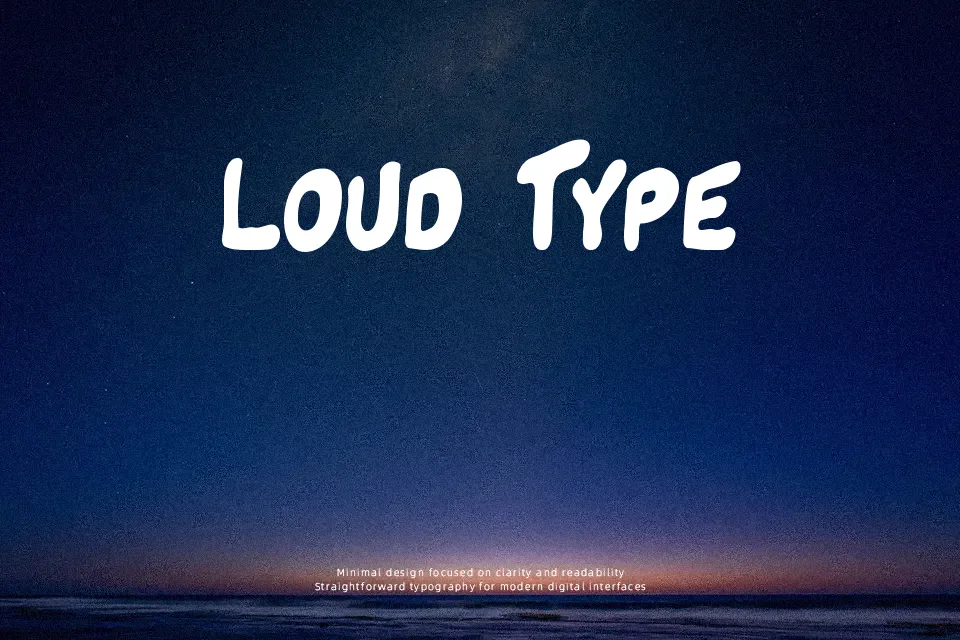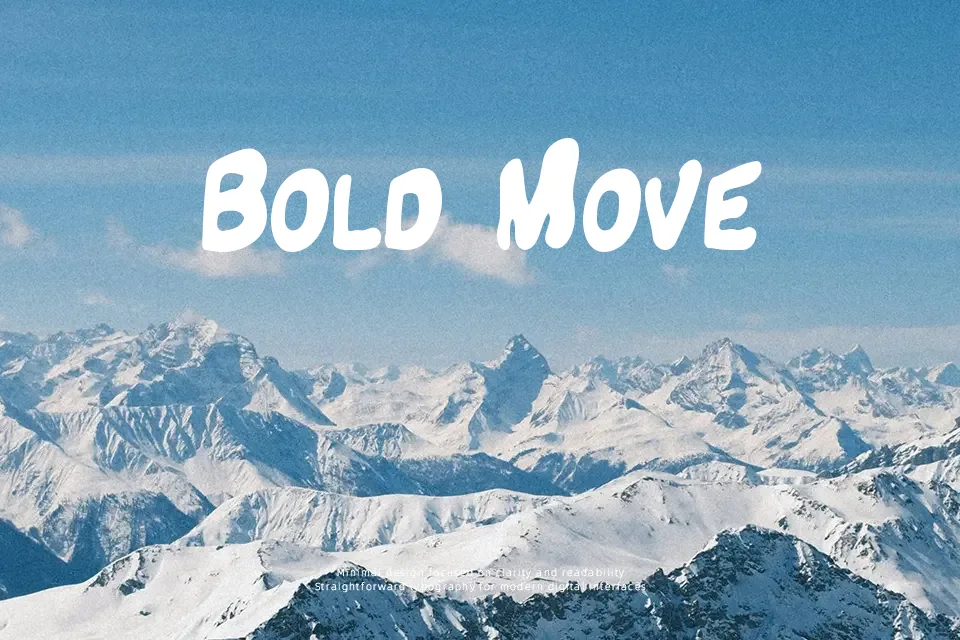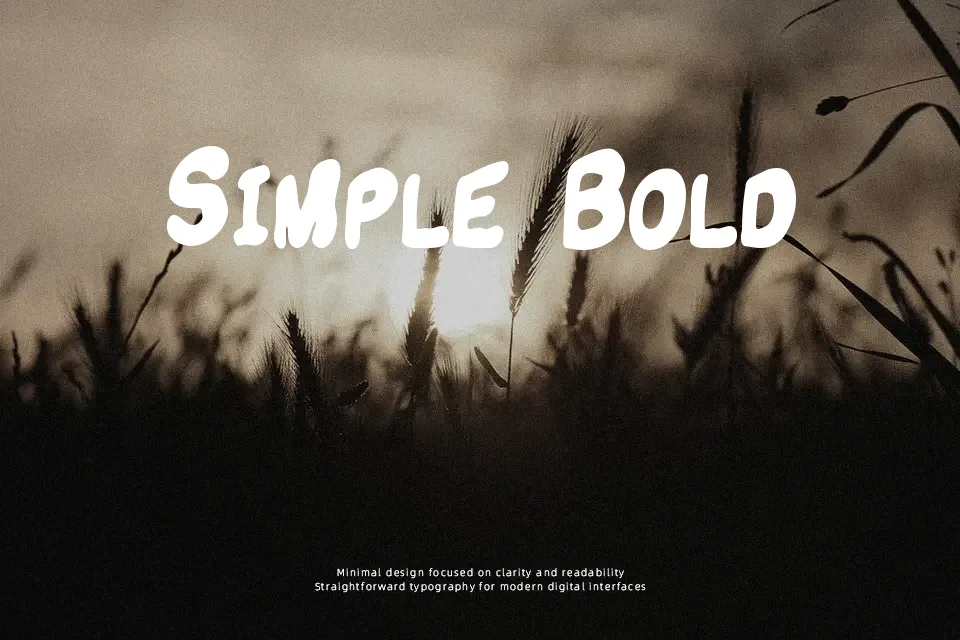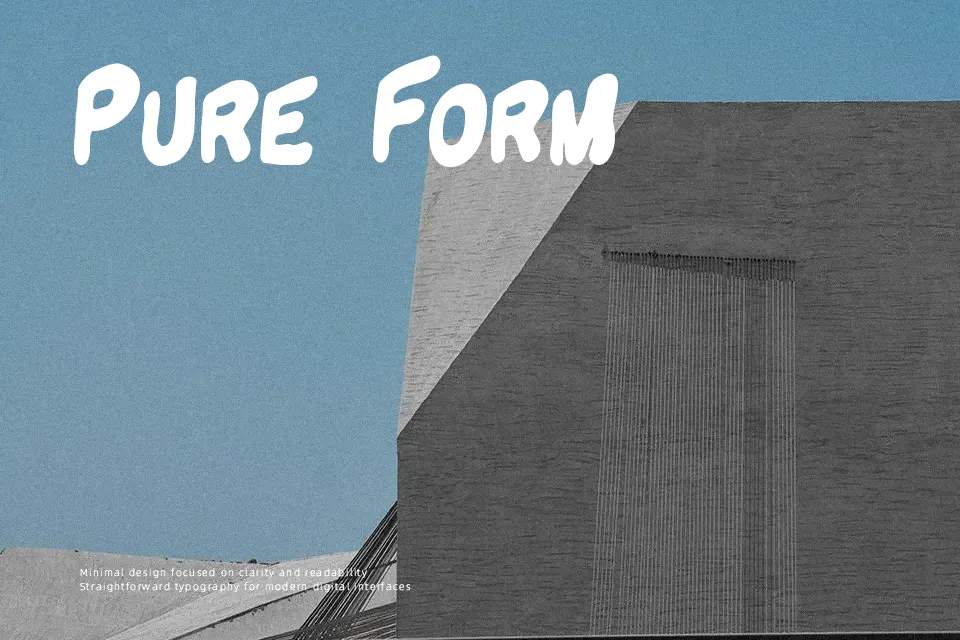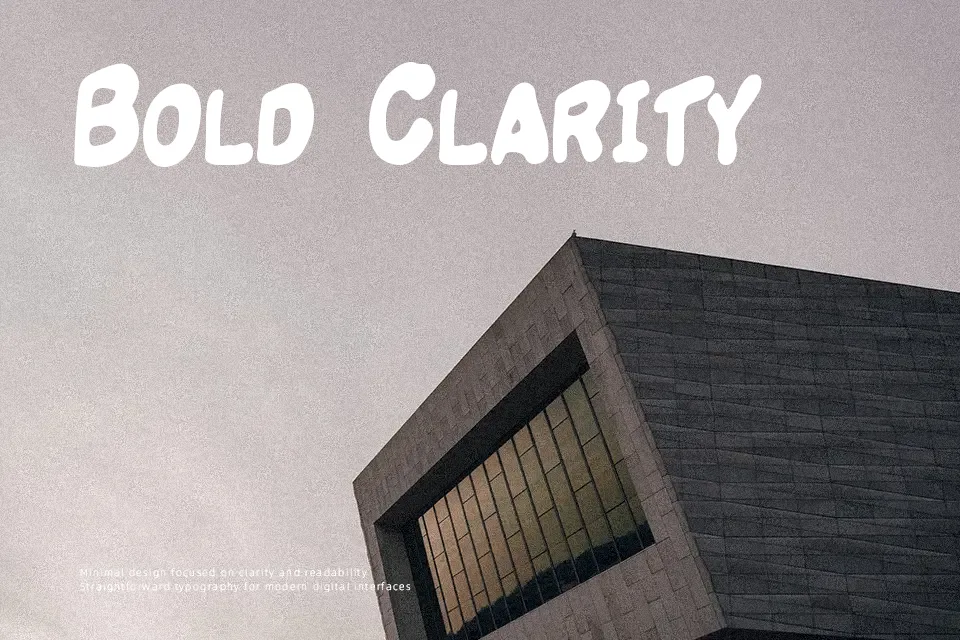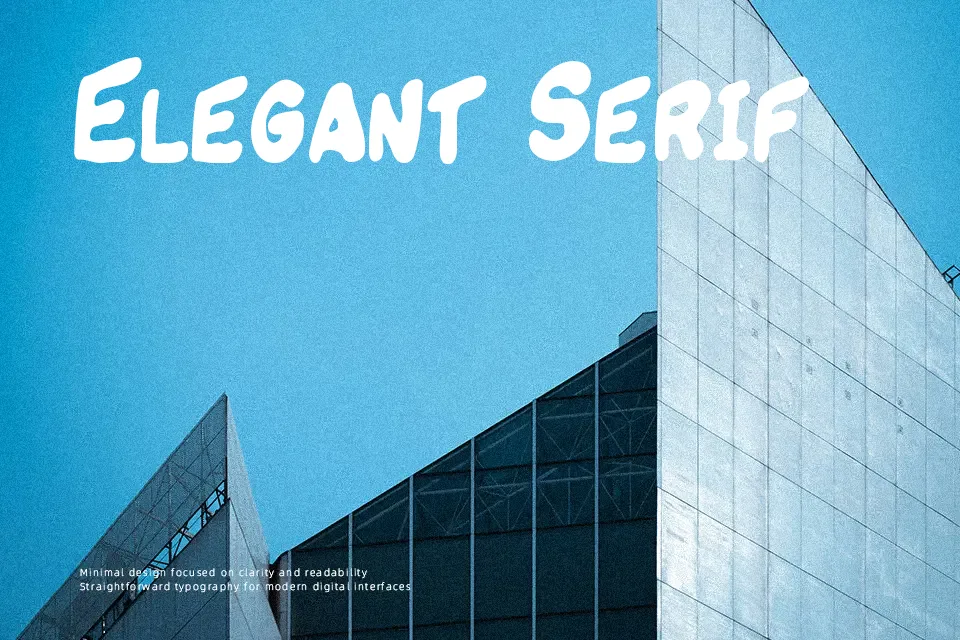
Komikandy Font
Designed by Apostrophic Labs
Rounded letterforms, bouncy baselines, and thick, even strokes give Komikandy a distinctly cartoon-driven personality. The spacing feels loose and energetic, making words appear lively and informal. It leans heavily into a comic and candy-like aesthetic, which works well for children’s content, playful branding, or colorful poster headlines. However, the exaggerated shapes reduce legibility at smaller sizes and in longer text blocks. It performs best in short, attention-grabbing phrases where personality matters more than readability, but struggles in structured or professional layouts that require visual restraint.
kids’ event posters
cartoon-style social media graphics
playful product packaging
comic title designs
minimalist branding systems
formal invitations
Perfect for headline, kids, and packaging, with a creative and cartoon style.